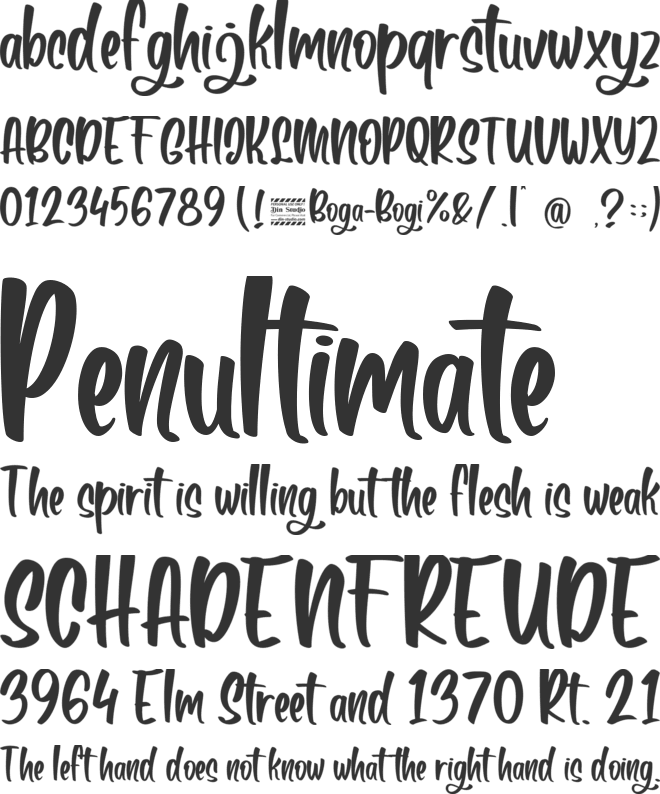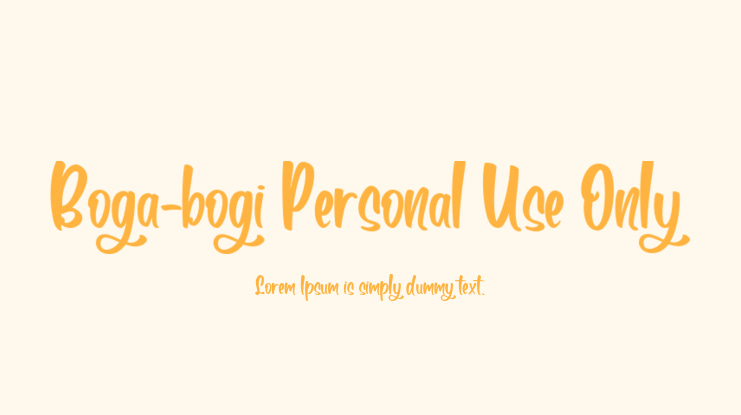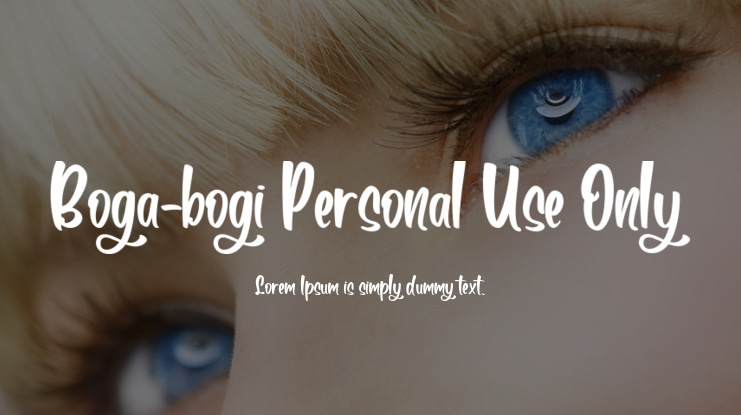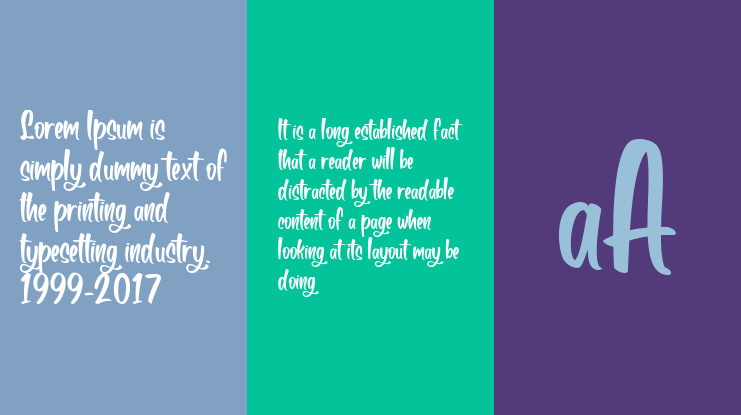
Boga-bogi – Layered font. This font is suitable for your design project, especially for branding, t-shirt printing, advertising, social media campaigns, lettering, and so much more. The font contains a full set of lowercase and uppercase letters, numerals, and punctuation.